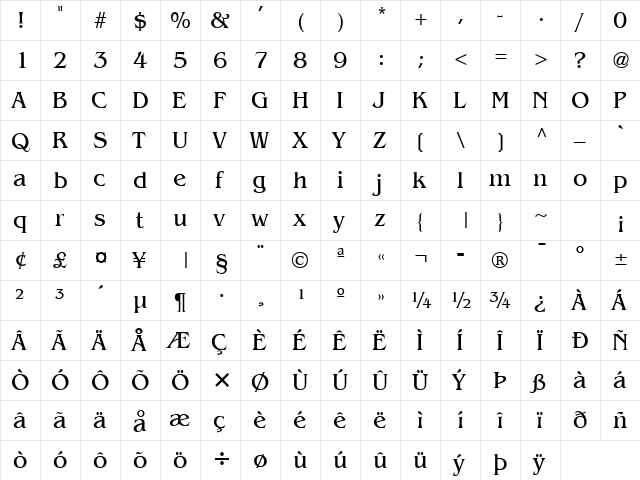
Bangle Normal
Design Context for Bangle Typeface
Bangle offers clean, dependable letterforms without strong stylistic allegiance, making it a practical choice for designers who need flexibility.